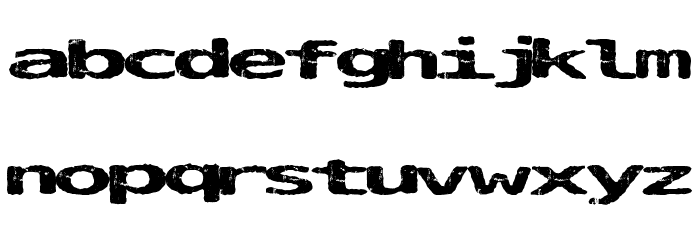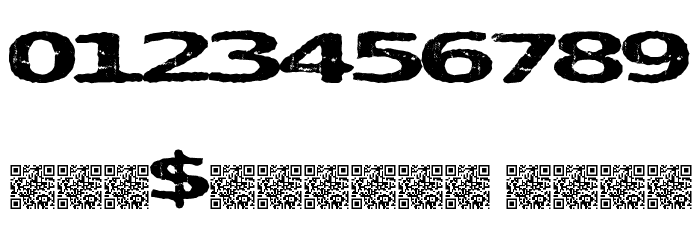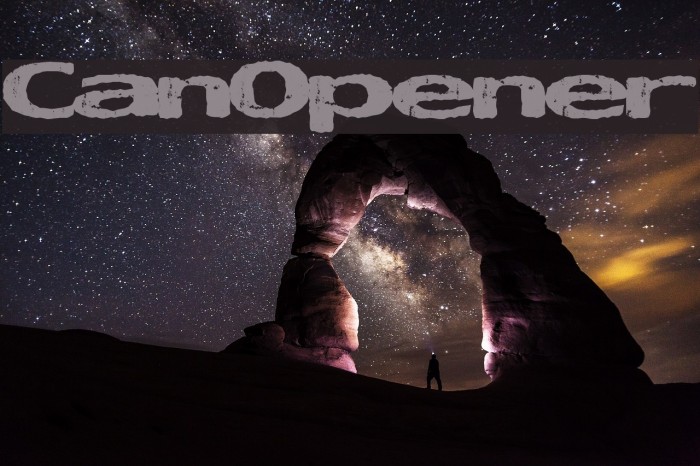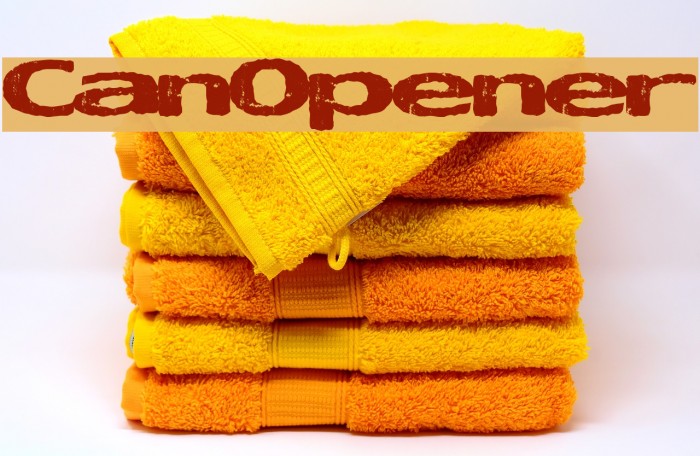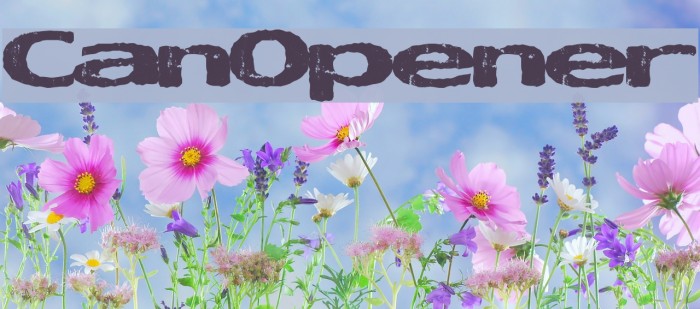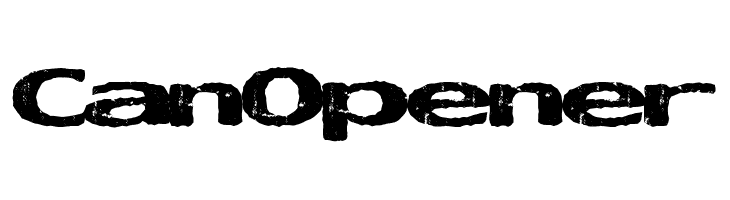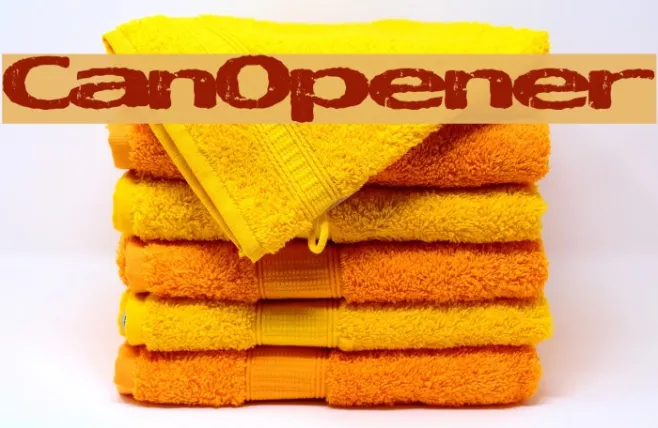
CanOpener Font
This font features a rugged, distressed appearance with a bold and impactful presence. The characters are designed with a rough texture, giving them a worn and vintage look. The uppercase and lowercase letters maintain a consistent style, with slightly irregular edges that add to the font's character. The numerals and special characters follow the same design, ensuring uniformity across all glyphs. This font's unique style makes it stand out, perfect for projects that require a touch of grunge or an industrial feel.
A bold, distressed font with a rugged, vintage appearance.
- Proposed Projects: Ideal for posters, album covers, branding for edgy products, or any design needing a grunge aesthetic.
- Overall Style: Vintage